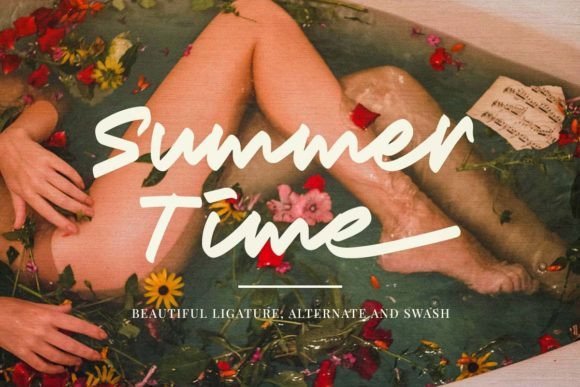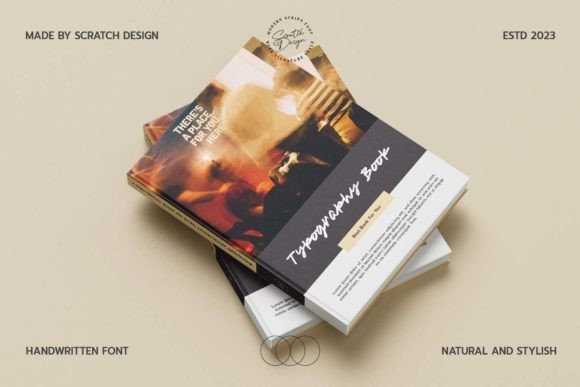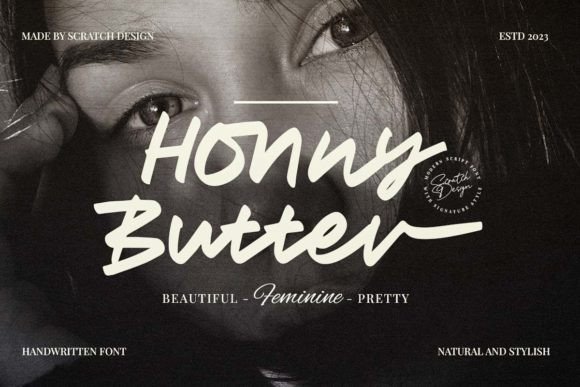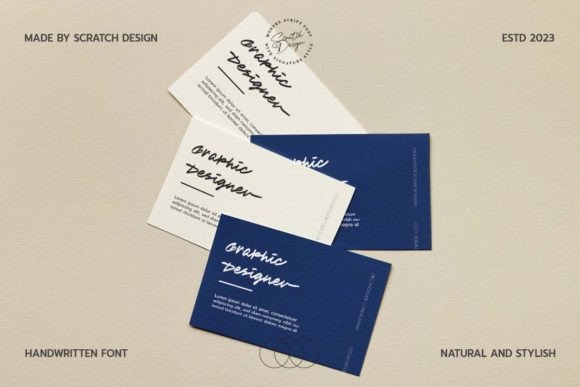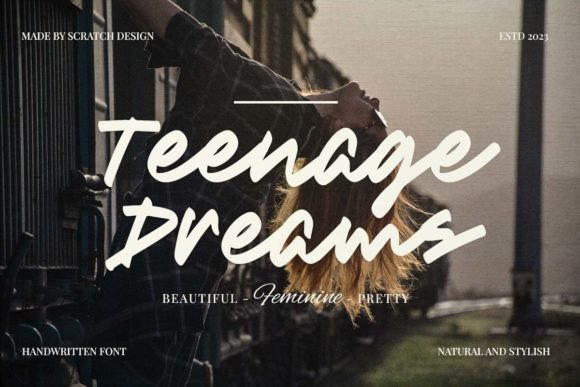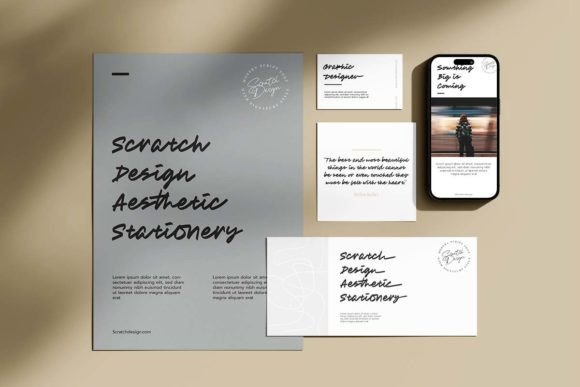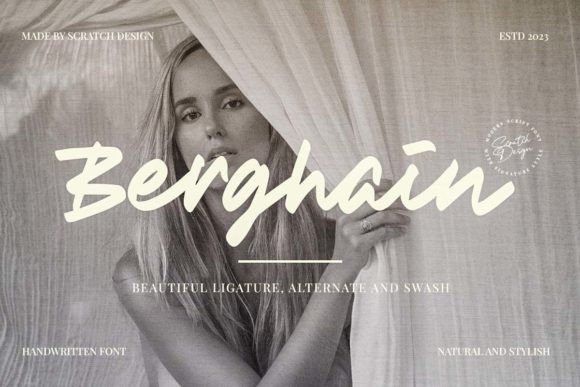
Introducing Berghain: The Ultimate Modern Script Handwriting Font
Are you tired of using the same old fonts in your designs? Look no further! We’re excited to introduce Berghain, a modern script handwriting font that adds a touch of elegance and sophistication to any design project. With its beautiful, natural, and cursive style, Berghain is perfect for designers and crafters looking to create stunning visual content.
The Beauty of Berghain
Berghain boasts a natural handwriting texture that makes it look authentic and unique. This font is designed to mimic the imperfections of handwriting, giving it a warm and personal feel that’s perfect for a wide range of design applications. Whether you’re creating a colorful poster or a minimalist headline, Berghain is sure to make your design stand out.
Key Features of Berghain
• Natural Handwriting Texture: Berghain’s natural handwriting texture gives it an authentic look that’s both elegant and sophisticated.
• Multi-Language Support: With Berghain, you can create designs in multiple languages, making it perfect for global brands and designers.
• Swashes, Alternates, and Ligatures: Berghain comes with a range of swashes, alternates, and ligatures that allow you to customize your design and add a touch of personality.
• Versatility: Berghain is incredibly versatile and can be used in a wide range of design applications, from branding and advertising to wedding designs and book covers.
Design Applications for Berghain
Berghain is perfect for designers and crafters looking to create stunning visual content. Here are some design applications where Berghain truly shines:
• Branding: Use Berghain to create a unique and memorable brand identity that sets you apart from the competition.
• Wedding Designs: Add a touch of elegance and sophistication to your wedding designs, from invitations to wedding cakes.
• Advertising: Use Berghain to create eye-catching headlines and ad copy that grabs attention and drives results.
• Posters and Flyers: Berghain is perfect for creating stunning posters and flyers that showcase your message in a clear and stylish way.
• Book Covers: Use Berghain to create a beautiful and eye-catching book cover that stands out on bookshelves.
Tips for Using Berghain
Here are some tips for getting the most out of Berghain:
• Experiment with Swashes and Alternates: Don’t be afraid to experiment with Berghain’s swashes and alternates to add a touch of personality to your design.
• Use it with Color: Berghain looks stunning on colorful backgrounds, so don’t be afraid to get creative with your color palette.
• Mix and Match: Berghain pairs well with a range of fonts, so feel free to mix and match it with other fonts to create a unique look.
In conclusion, Berghain is a stunning modern script handwriting font that’s perfect for designers and crafters looking to add a touch of elegance and sophistication to their designs. With its natural handwriting texture, multi-language support, and range of swashes, alternates, and ligatures, Berghain is incredibly versatile and can be used in a wide range of design applications. So why wait? Download Berghain today and start creating stunning visual content that stands out from the crowd!